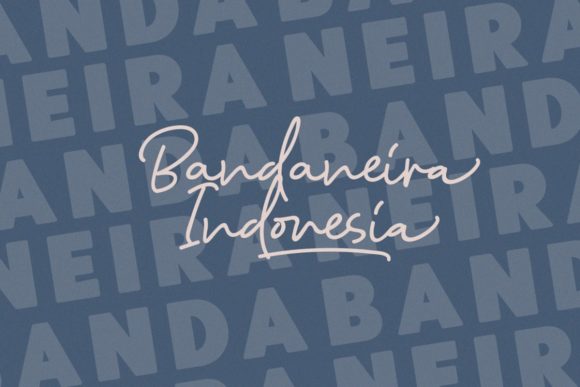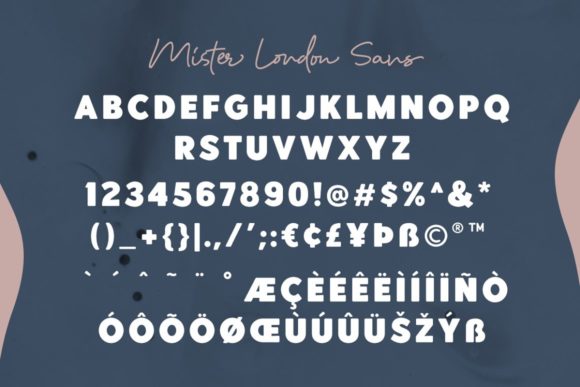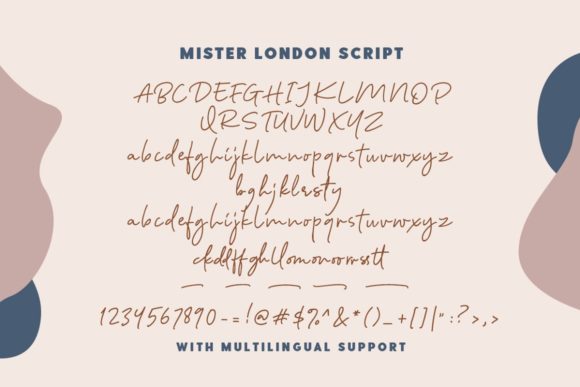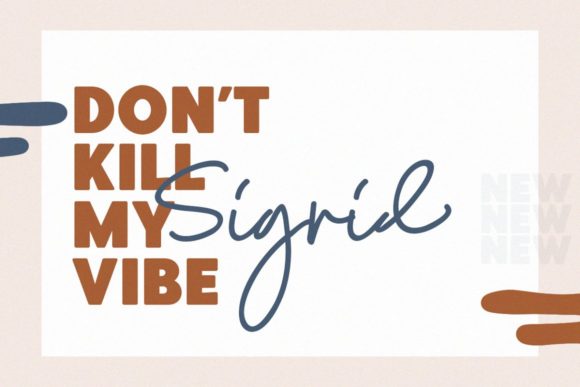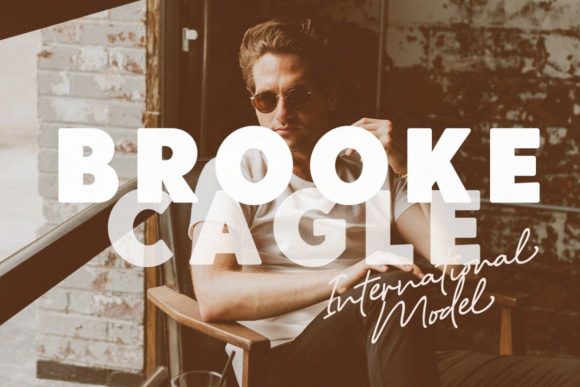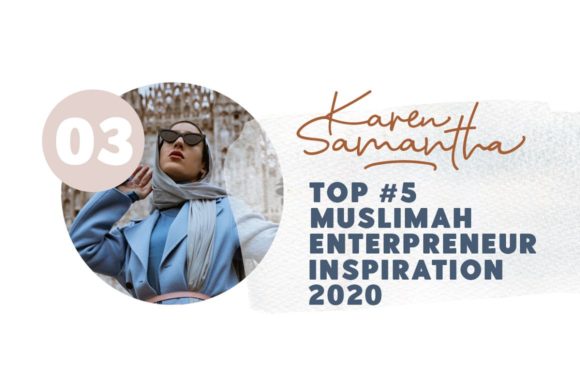
Introduction to Mister London Font Font
Fonts play a crucial role in design, and the Mister London Font font is a typeface that brings both character and versatility to any project. Whether you’re working on a branding project, a website, or a print design, the Mister London Font font offers a unique style that can elevate your work.
Mister London is a fantastic duo font.
It perfectly combines a relaxed script with a cute sans serif Use them together to get a versatile look.
Key Features of Mister London Font Font
Why Choose Mister London Font Font?
The Mister London Font font is more than just a typeface – it’s a design tool that helps you communicate your message with style and clarity. Its unique character set and versatile design make it suitable for a wide range of applications, from elegant invitations to bold headlines.
With its carefully crafted letterforms and balanced proportions, the Mister London Font font ensures readability and visual appeal across all mediums.
What makes Mister London Font font special?
The Mister London Font font stands out with its unique design, exceptional readability, and versatility across various design applications.